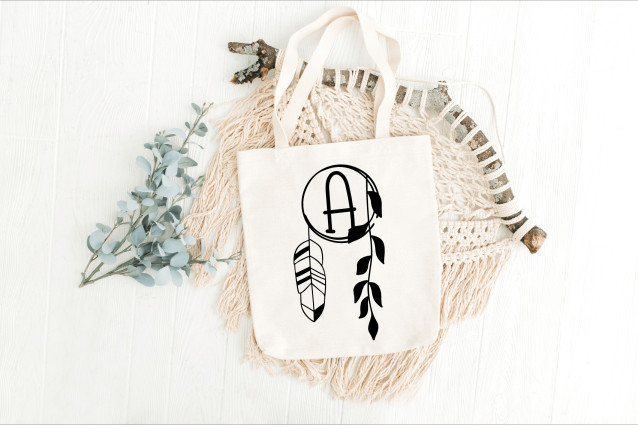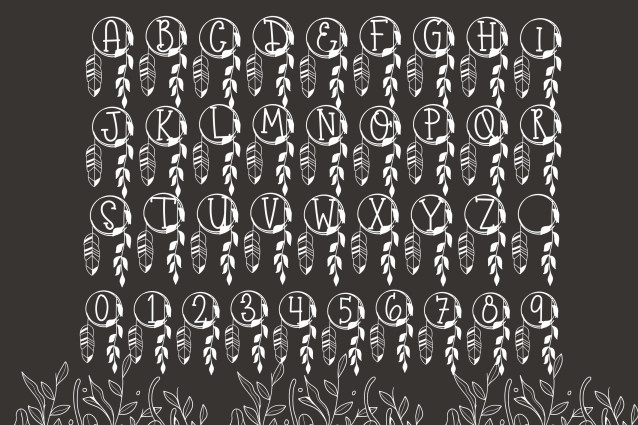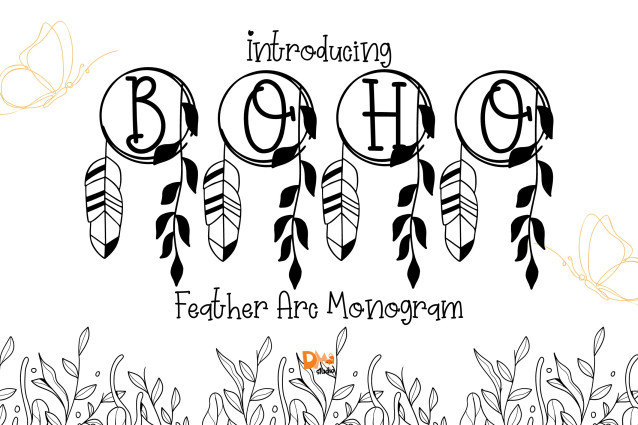
Feather Arc Monogram Font
Feather Arc Monogram Font is a graceful serif monogram font featuring uppercase letters adorned with delicately hand-drawn feathers arranged in soft, curved arcs. Perfectly balancing structure and flow, this font brings a light, bohemian elegance to personalized initials, wedding designs, Cricut crafts, and boutique branding.